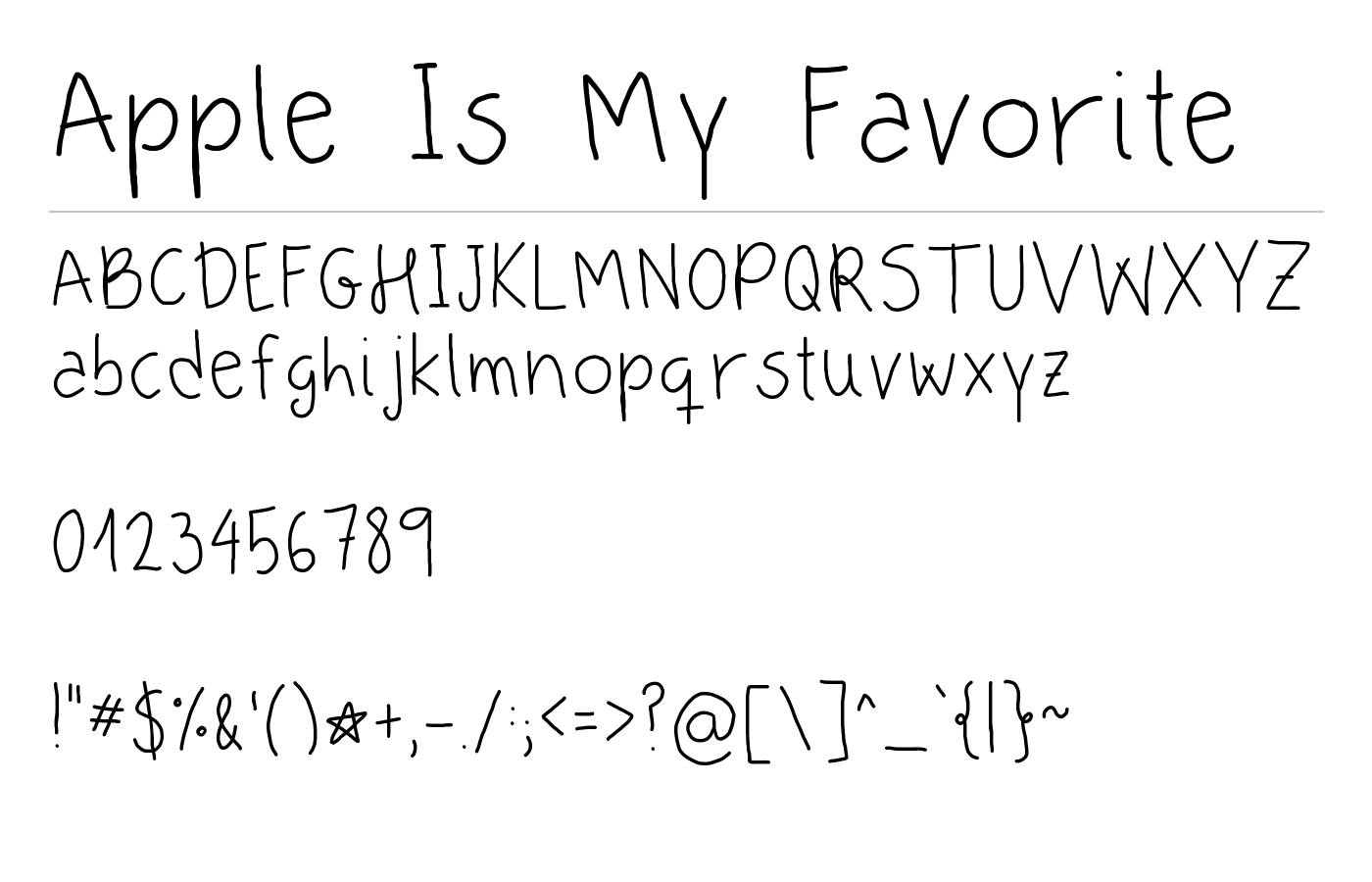
"Apple Is My Favorite Font" is a playful, handwritten sans serif that exudes a casual and friendly vibe. Its light weight, tall letterforms, and irregular stroke shapes make it feel approachable and informal, perfect for designs needing a personal, whimsical touch. This font works well in creative projects, children’s materials, and branding that aims to be fun and down-to-earth.
Apple Is My Favorite Font
About Apple Is My Favorite Font